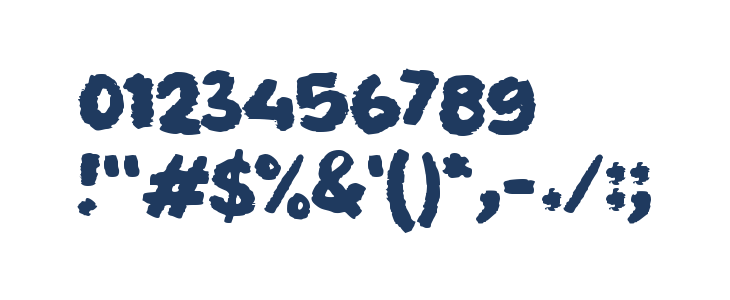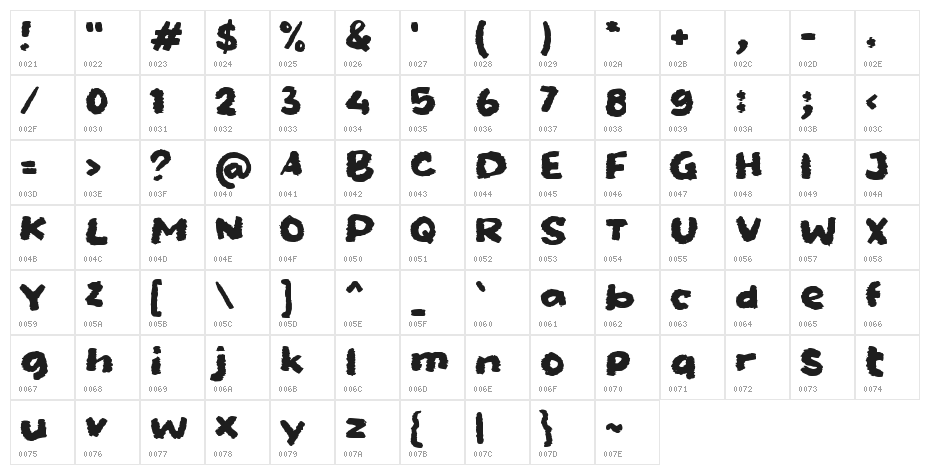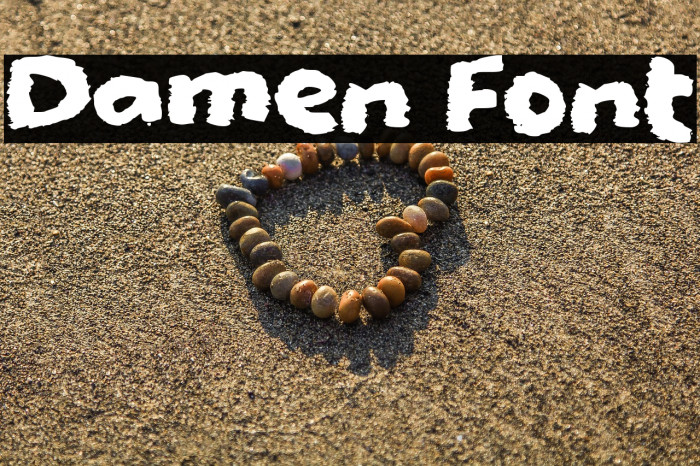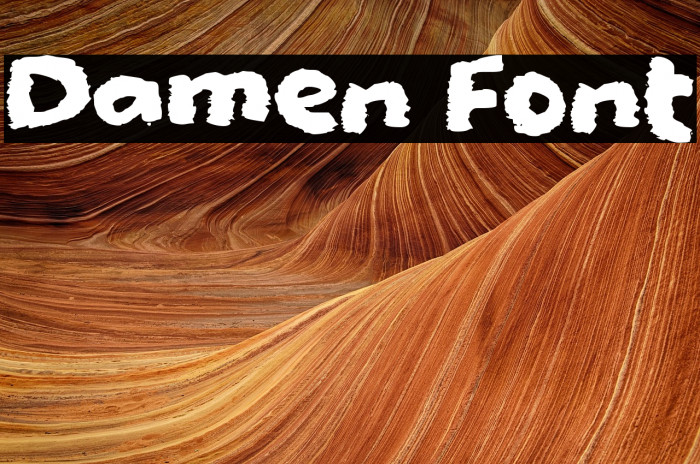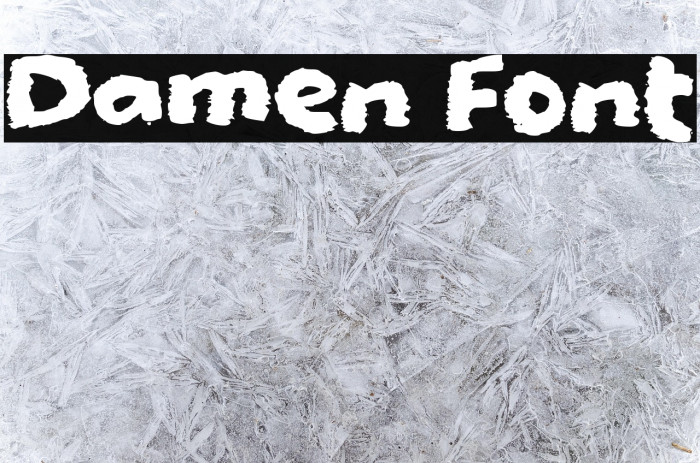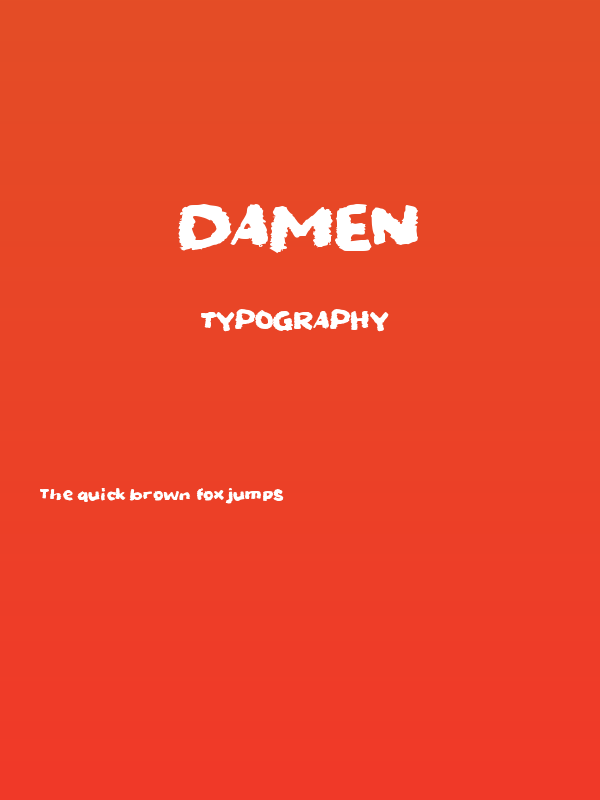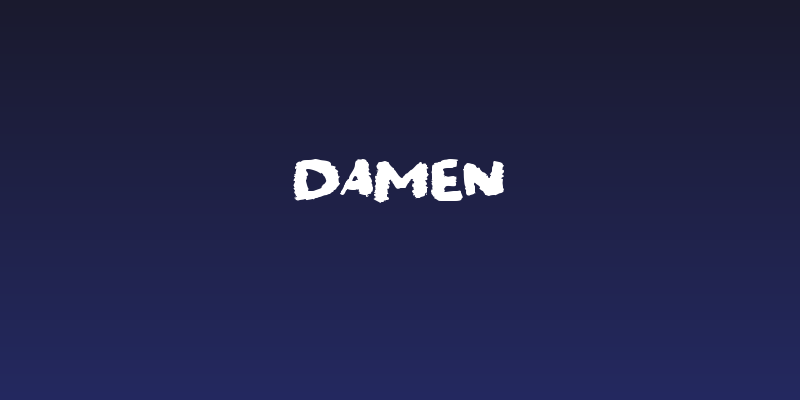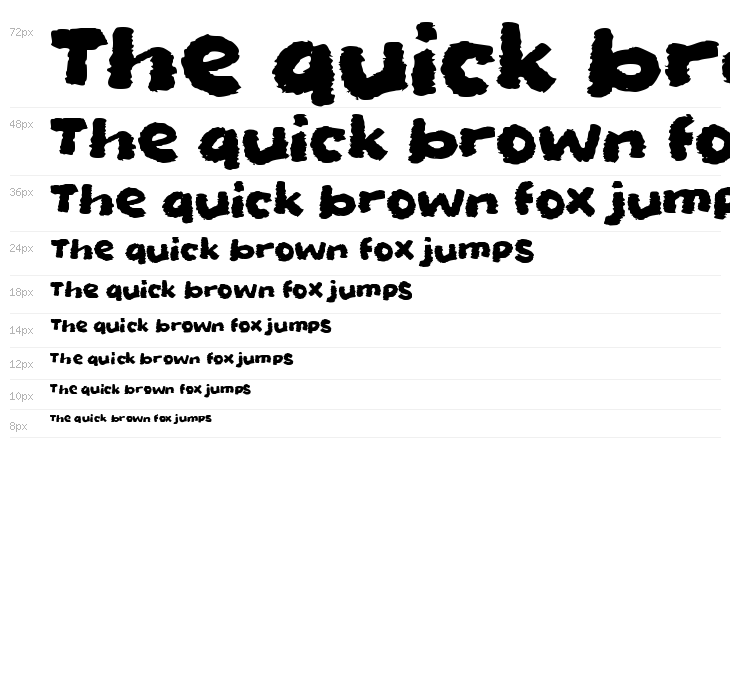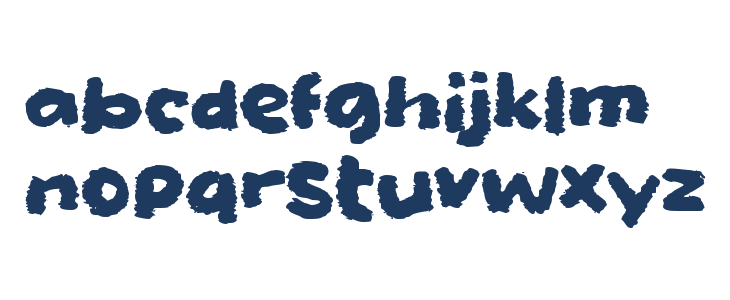
Damen Font
Damen Description
This font features a bold and playful style with a hand-painted appearance. The characters are thick and rounded, giving a sense of energy and movement. The strokes are uneven, adding a dynamic and organic feel. Each letter has a unique, slightly irregular shape, contributing to its informal and artistic vibe. The font is highly legible despite its decorative nature, making it suitable for eye-catching designs. The numbers and special characters maintain the same lively and bold characteristics, ensuring consistency across all elements.
| Proposed Projects | Ideal for posters, children's books, playful branding, and creative advertising campaigns. |